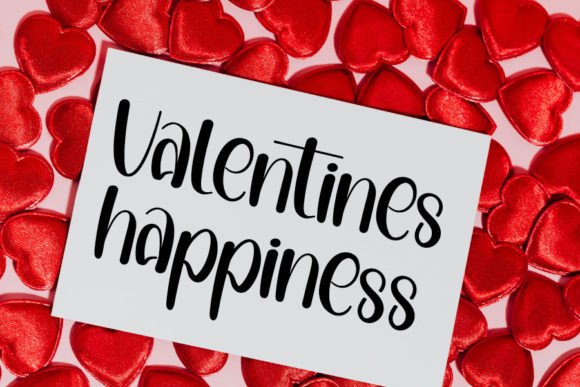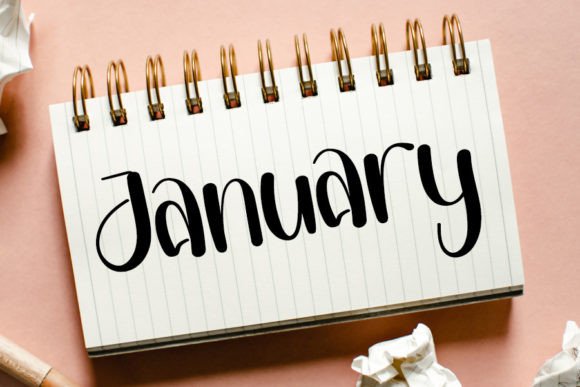
Introducing Blue Beach Font: Elevate Your Designs with Elegance
Are you on the hunt for a font that exudes elegance and sophistication? Look no further than Blue Beach Font, a stunning handwritten font that is sure to capture your heart. With its unique blend of style and charm, Blue Beach is perfect for designers and crafters looking to add a touch of class to their projects.
The Beauty of Blue Beach Font
Blue Beach Font is a neat and beautiful handwritten font that boasts an elegant touch. Its incredibly distinct and timeless style makes it an excellent choice for a wide range of design projects, from wedding invitations and branding materials to social media graphics and more. Whether you’re a seasoned designer or a crafty DIY enthusiast, Blue Beach Font is sure to inspire your creativity.
What Makes Blue Beach Font Special?
So, what sets Blue Beach Font apart from other fonts out there? Here are just a few reasons why this font is a cut above the rest:
- Elegant and Refined: Blue Beach Font features a sophisticated and elegant design that is perfect for high-end branding and design projects.
- Unique and Distinctive: With its own unique character and style, Blue Beach Font is sure to make your designs stand out from the crowd.
- Timeless Appeal: Unlike trendy fonts that quickly go out of style, Blue Beach Font has a timeless quality that ensures your designs will remain stylish for years to come.
- Versatile: Whether you’re designing a logo, brochure, or social media graphic, Blue Beach Font is versatile enough to work beautifully in a wide range of applications.
How to Use Blue Beach Font in Your Designs
Ready to fall in love with Blue Beach Font and start using it in your designs? Here are a few tips to get you started:
- Pair it with Other Fonts: Experiment with pairing Blue Beach Font with other fonts to create a unique and eye-catching design.
- Use it for Headings and Titles: Blue Beach Font is perfect for headings and titles, where its elegant and refined design can really shine.
- Add a Personal Touch: Use Blue Beach Font to add a personal touch to your designs, whether you’re creating a custom wedding invitation or a social media graphic.
Who is Blue Beach Font for?
Blue Beach Font is perfect for a wide range of designers and crafters, including:
- Graphic Designers: Whether you’re working on a branding project or creating social media graphics, Blue Beach Font is a great addition to your font library.
- Wedding Planners and Stylists: Use Blue Beach Font to create beautiful wedding invitations, programs, and other stationery.
- Crafters and DIY Enthusiasts: Add a touch of elegance to your craft projects, from handmade cards to DIY home decor.
In conclusion, Blue Beach Font is a beautiful and elegant handwritten font that is sure to elevate your designs. With its unique and distinctive style, timeless appeal, and versatility, it’s the perfect choice for designers and crafters looking to add a touch of class to their projects. So why wait? Fall in love with Blue Beach Font today and start creating spectacular designs!